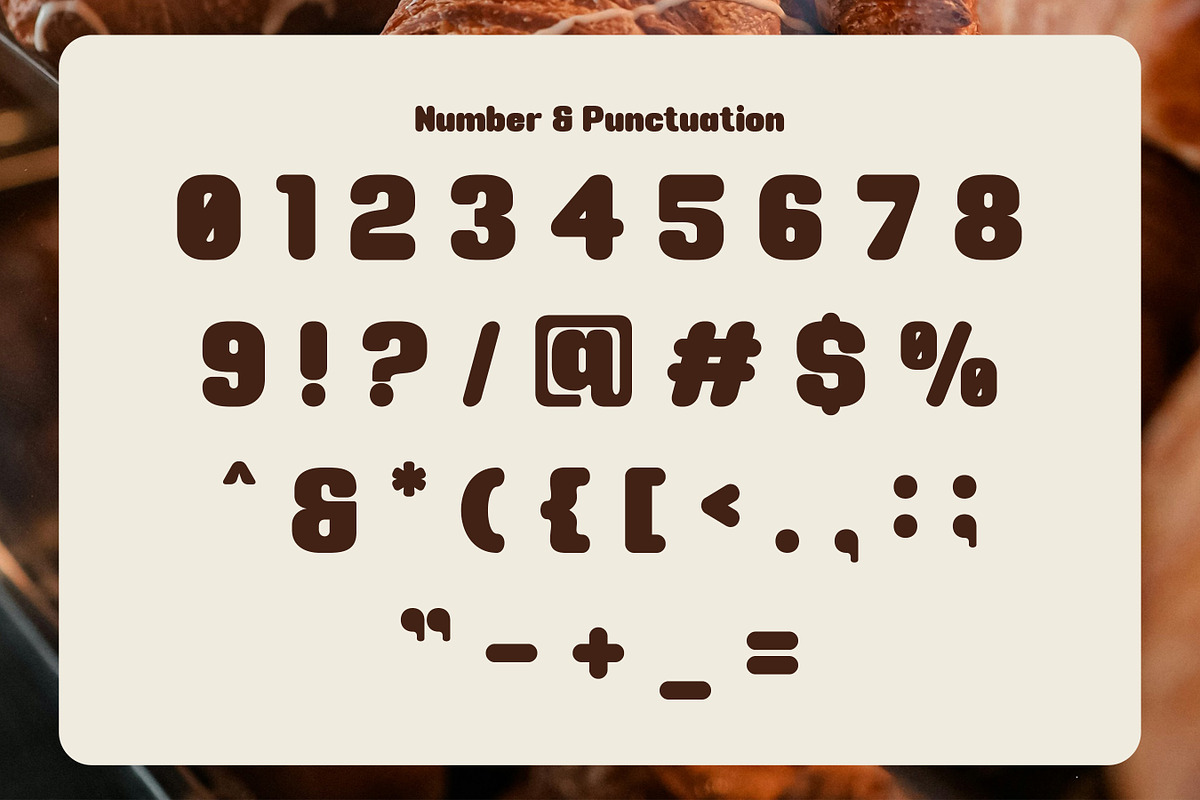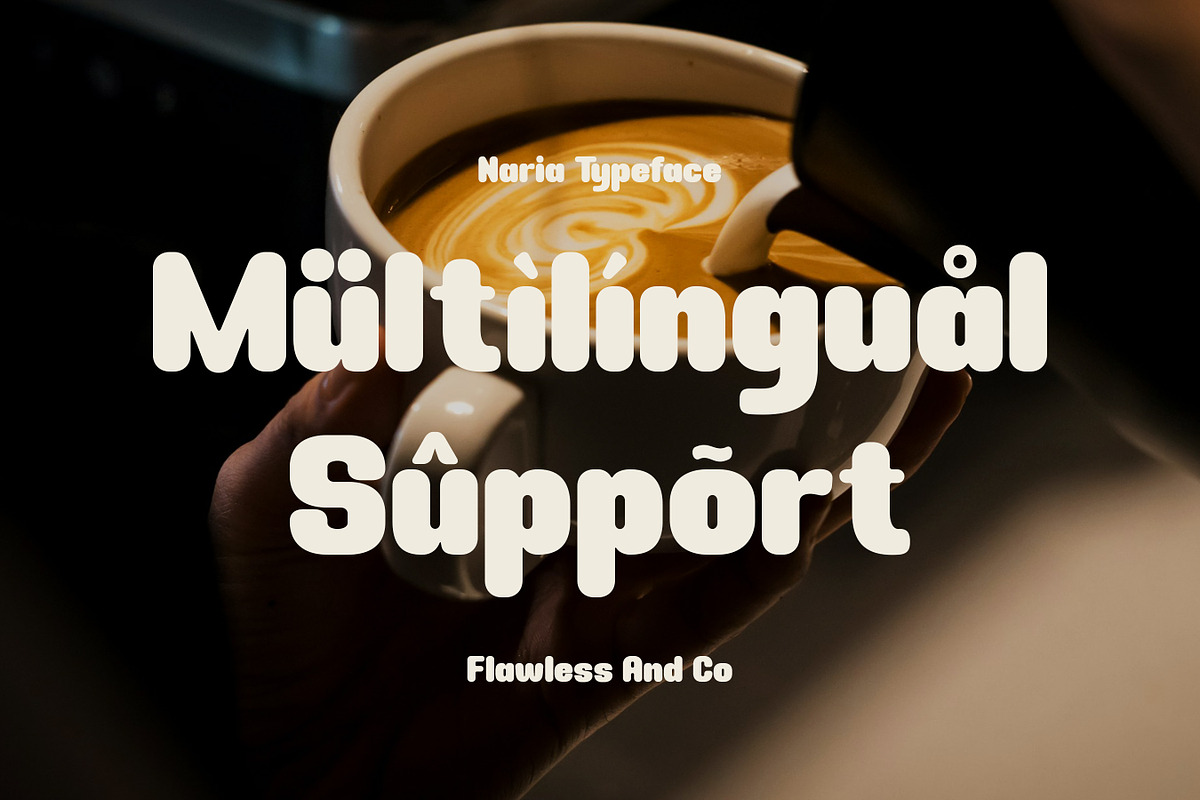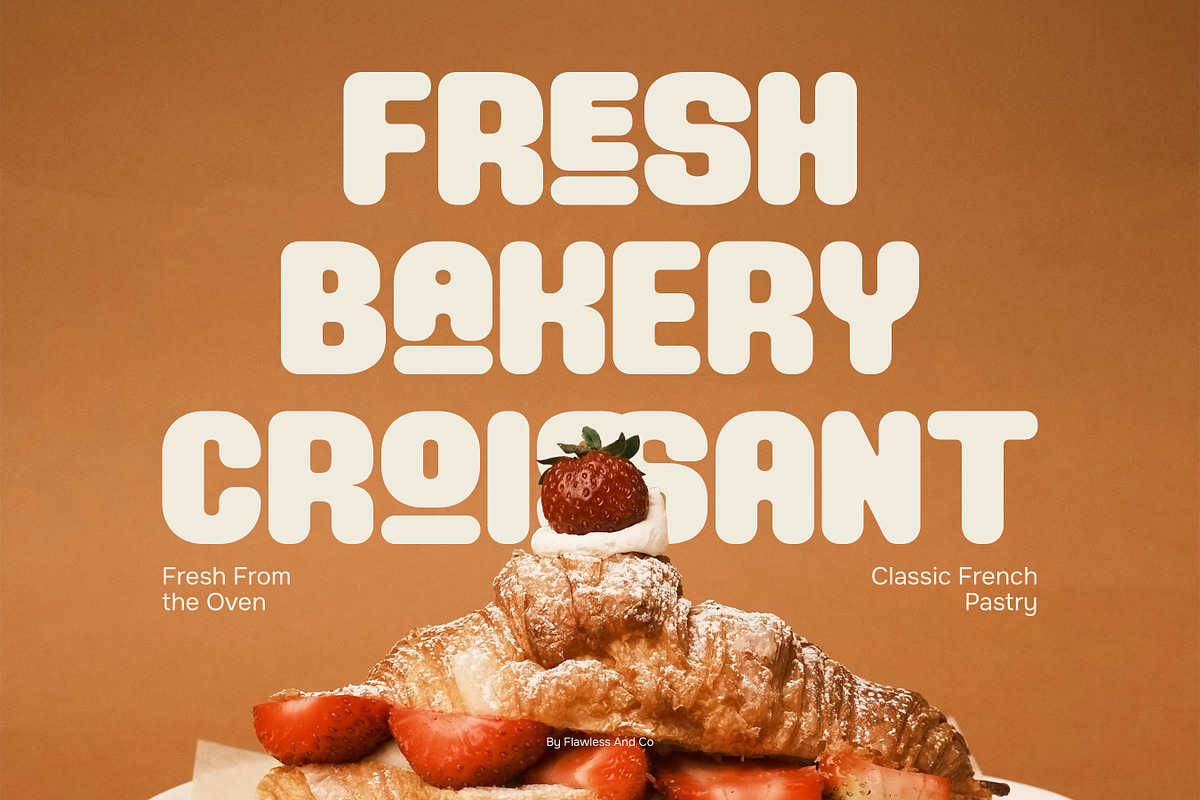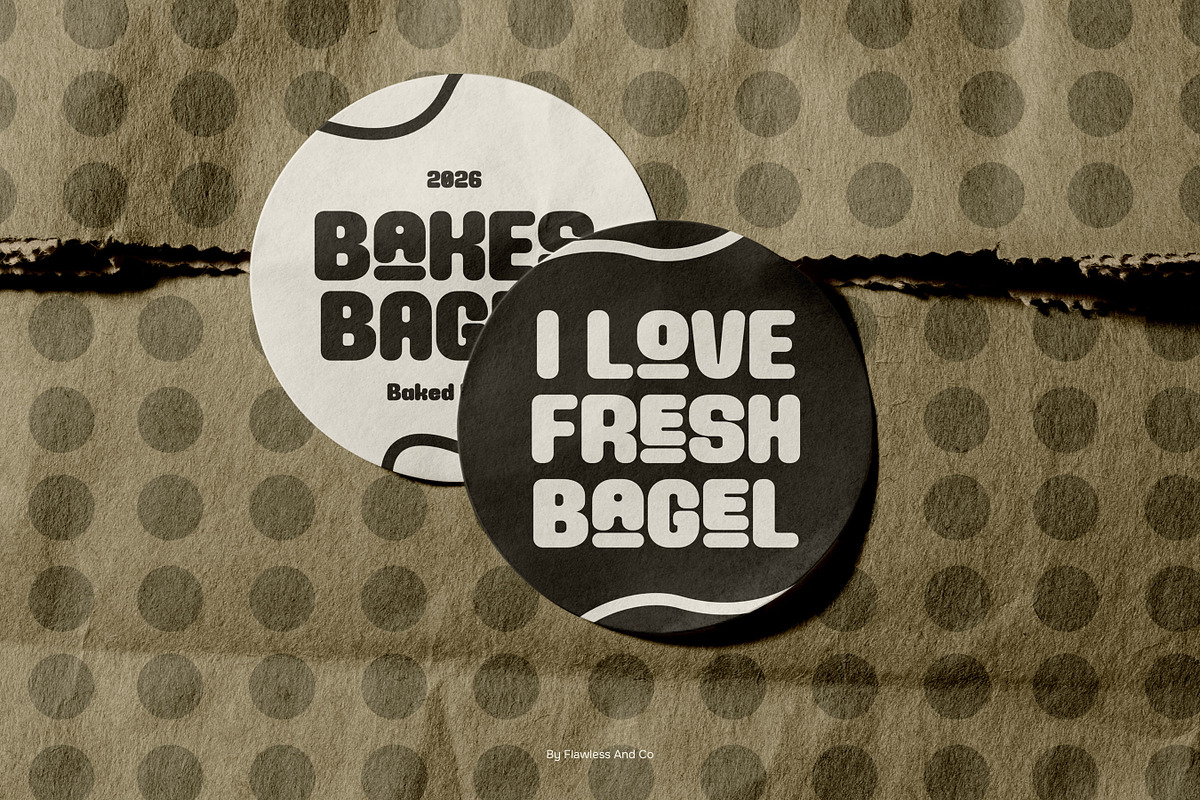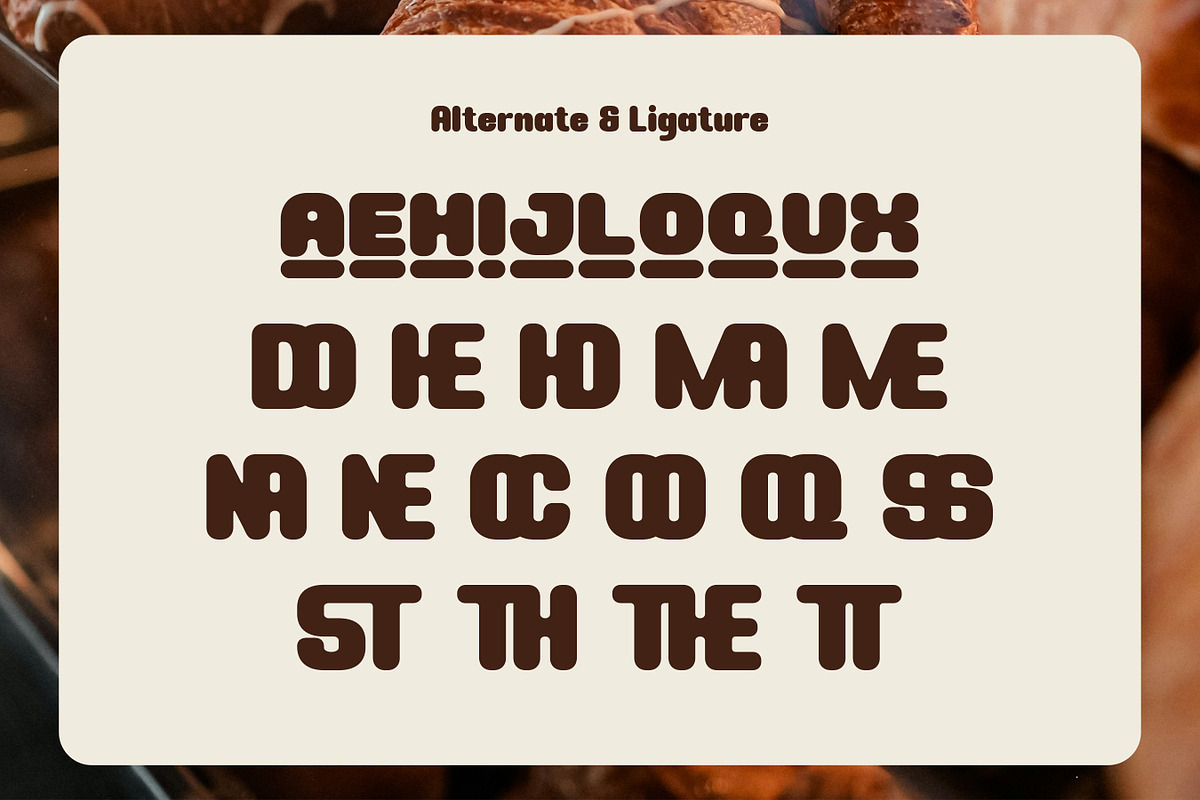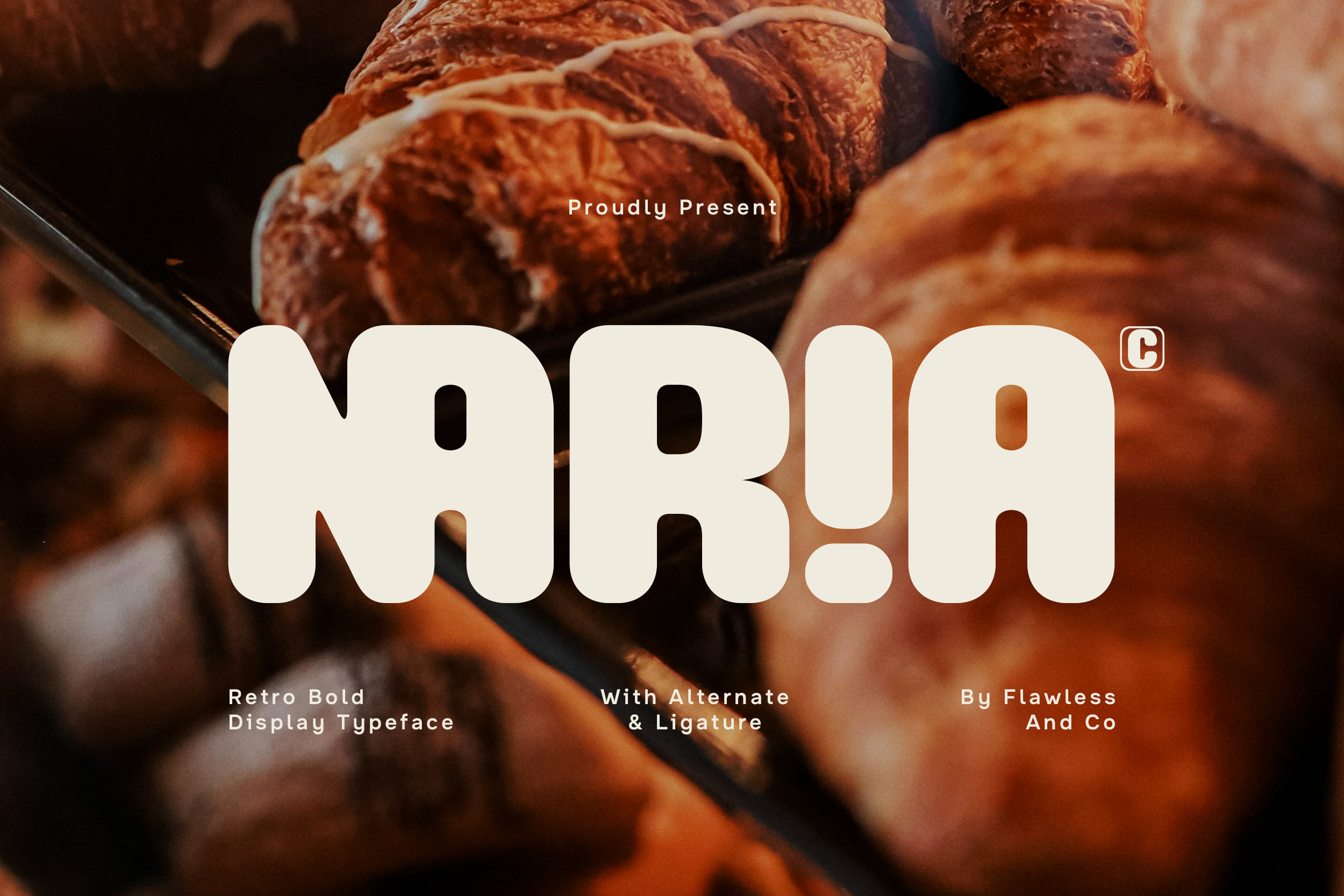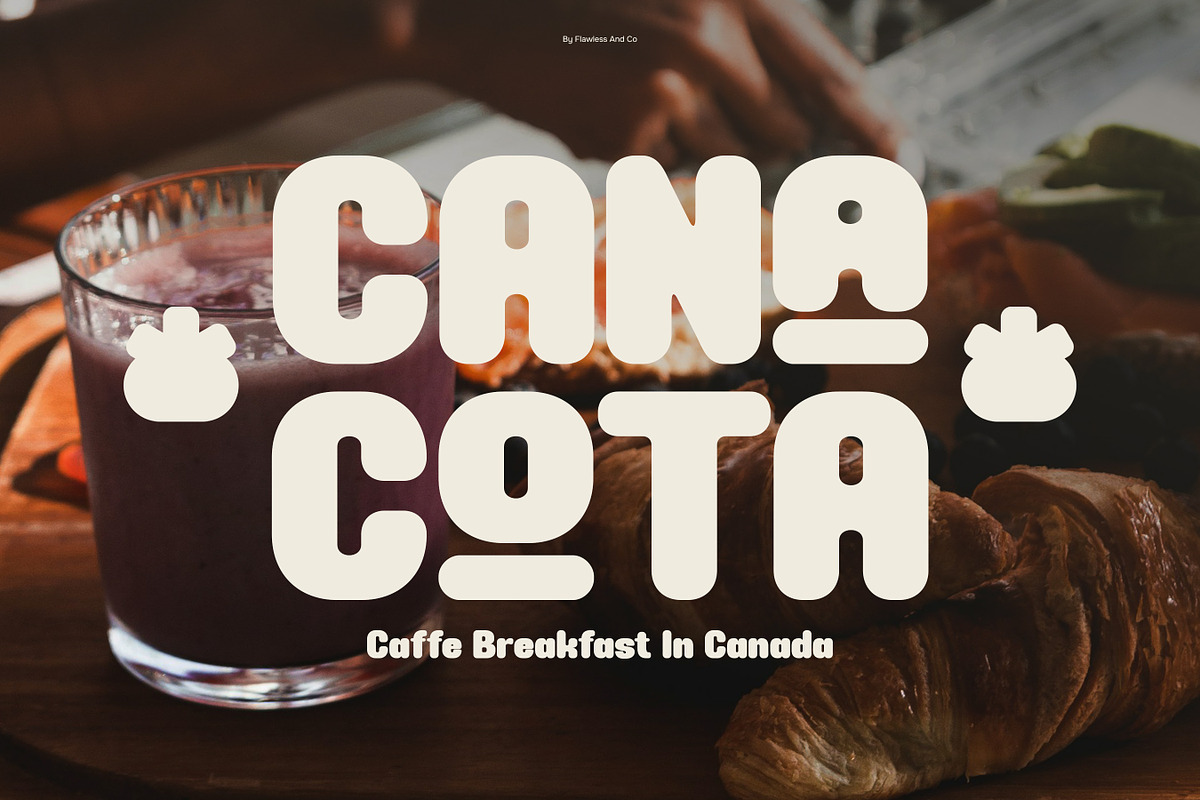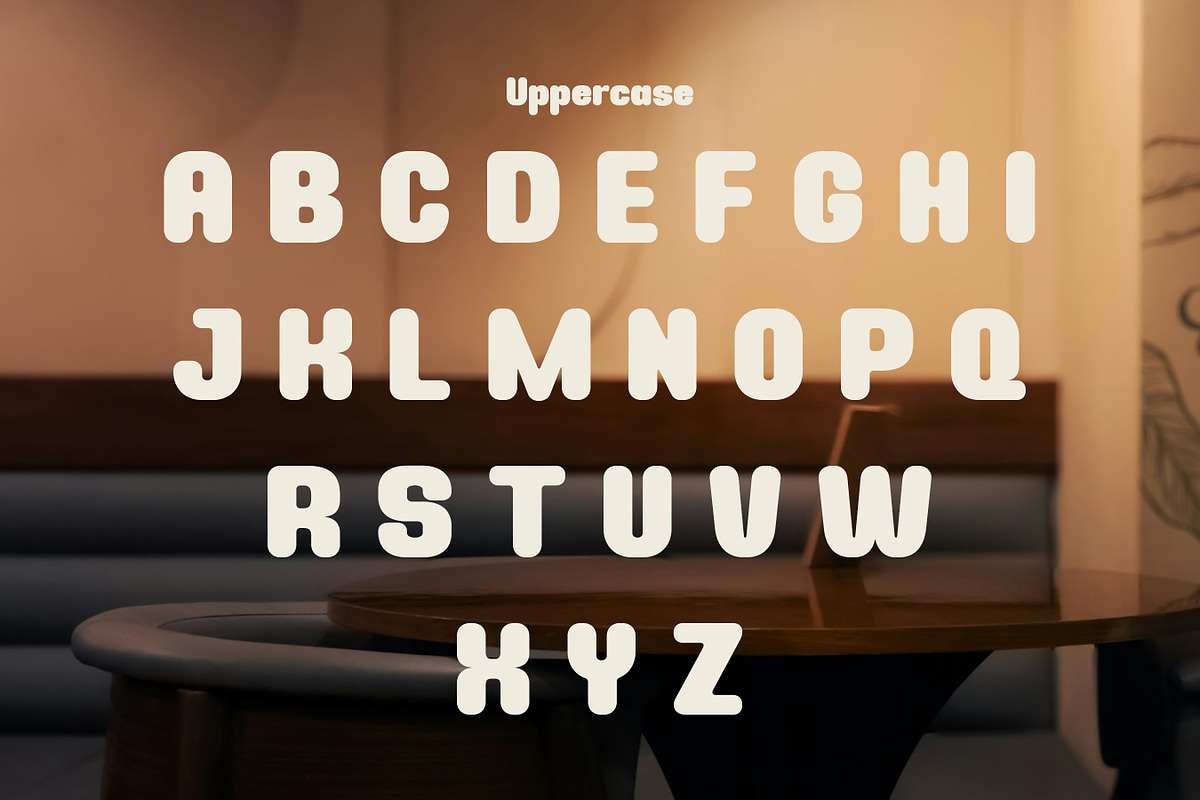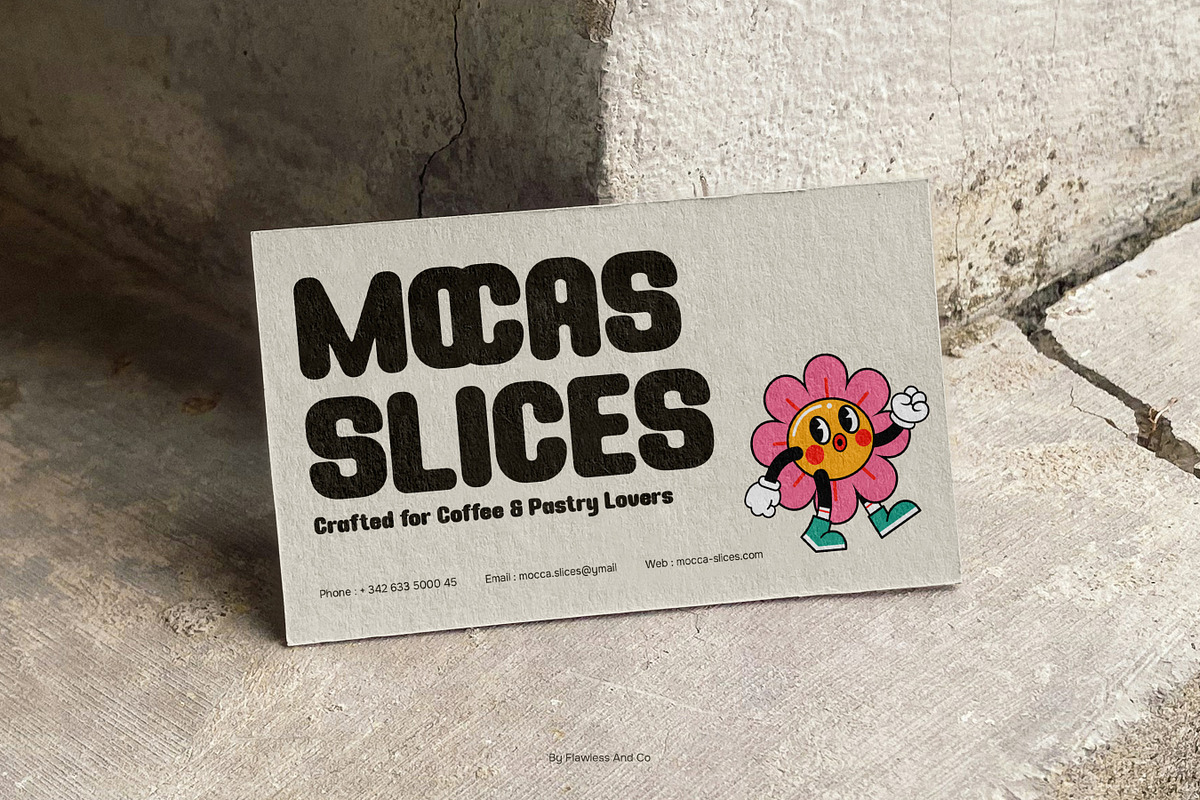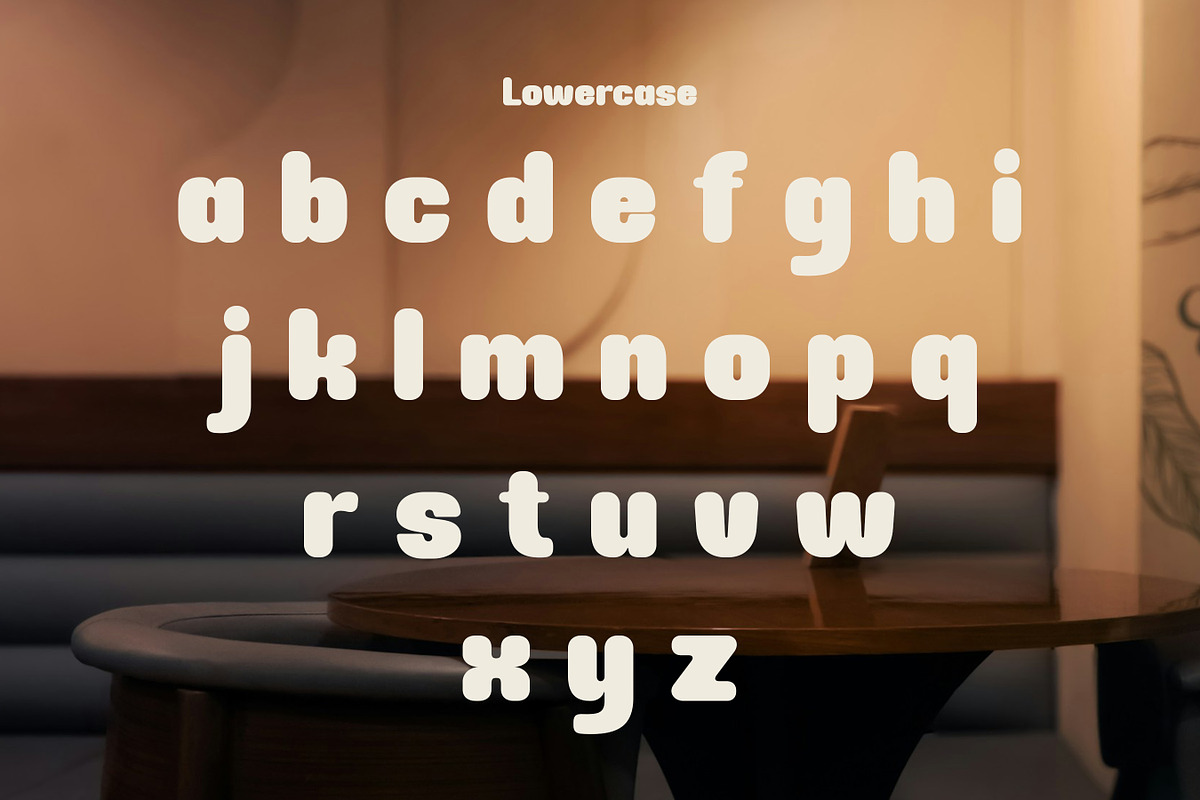
Naria - Retro Bold Display Font
Naria is a retro bold display typeface that captures the spirit of vintage design with a strong and confident modern twist. Built with thick strokes and distinctive retro shapes, Naria delivers a bold visual impact that instantly stands out. Its nostalgic style brings warmth and character, making every design feel lively, expressive, and full of personality.
Who Should Use Naria?
Naria is ideal for designers, creatives, and brands who want to explore retro aesthetics with a bold and modern approach. It’s especially suited for projects that require strong, playful, and memorable typography.
Suitable For:
- Retro and vintage branding
- Bold logo design
- Posters and headlines
- Packaging design
- Advertising and promotions
- Social media graphics
- Event and festival visuals
- Creative typography projects